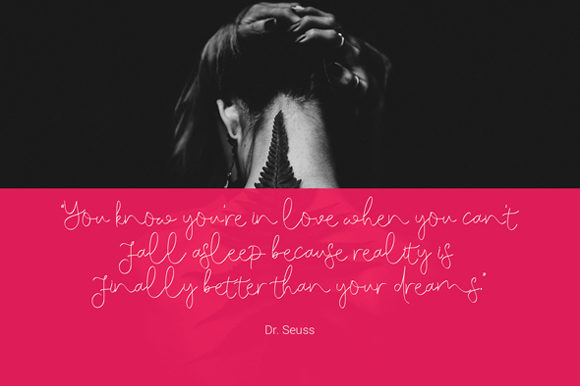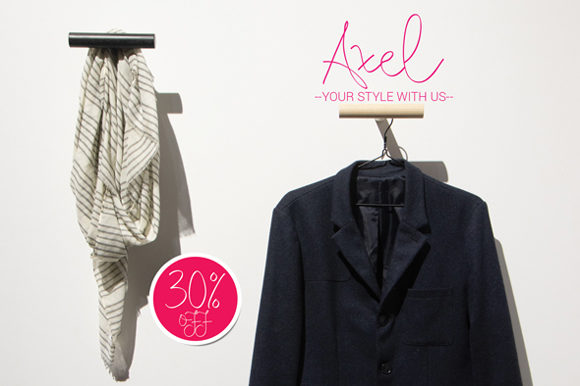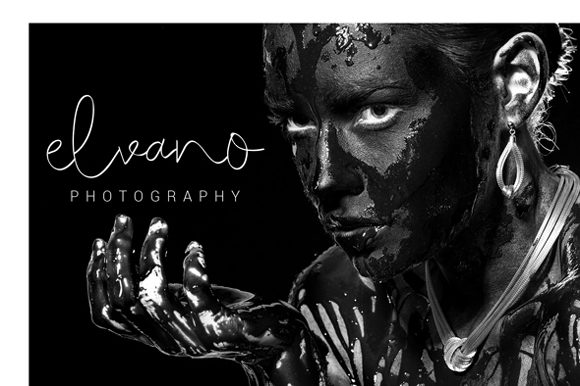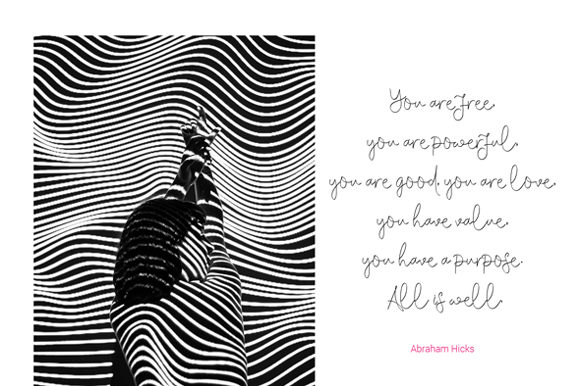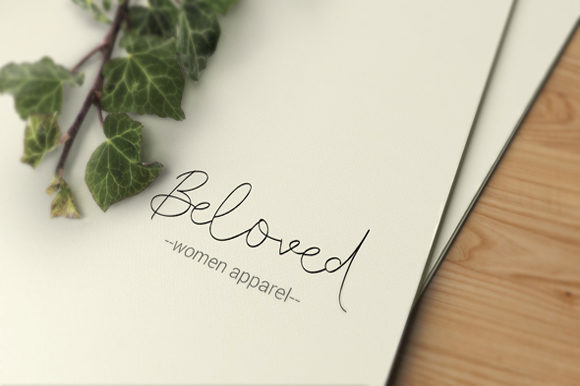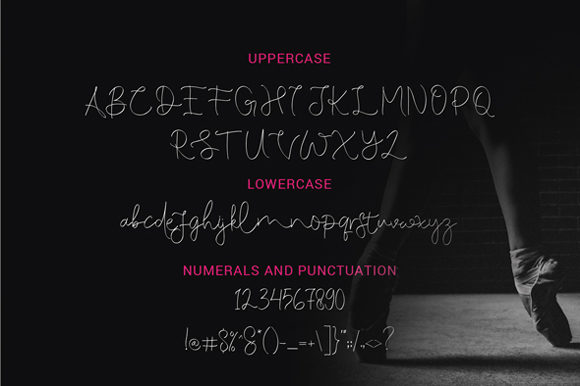
Beloved Font
About Beloved Font
Beloved is a beautiful signature script font. It will look particularly adept when used in logos, branding, packaging design, and much more. This masterfully designed font is a true must-have.